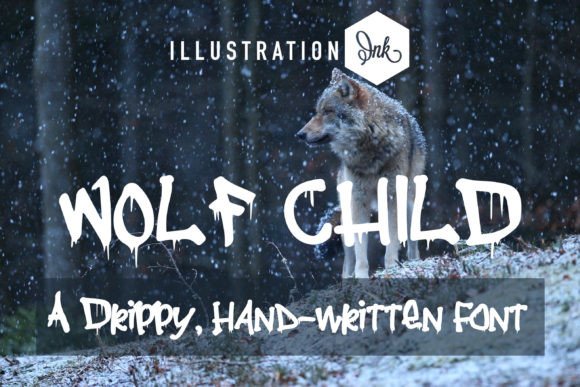
Welcome to the world of Wolf Child Font, the perfect choice for those who love to express their creativity through unique and eye-catching designs. This beautiful script font family created by Illustration Ink is ideal for those looking to add a touch of winter magic to their projects.
Wolf Child Font is the perfect blend of fluidity and whimsy, capturing the essence of frosty winter days in every stroke. Its handwritten design evokes a sense of warmth and coziness, making it the perfect choice for holiday cards and invitations.
The unique drippy effect of each letter mimics the melting of icicles, creating a stunning visual that's sure to impress. Wolf Child Font is a versatile font that's perfect for anything from social media graphics to branding and packaging.
The organic and fluid letters in Wolf Child Font are full of personality, adding a touch of character to any project. Its cold and drippy design will evoke feelings of winter wonder, making it an ideal choice for any seasonal design project.
With Wolf Child Font, you'll be able to unleash your creativity and add a touch of magic to your designs. So whether you're a graphic designer, blogger, or hobbyist, this Font For Paint is the perfect choice to add to your collection.